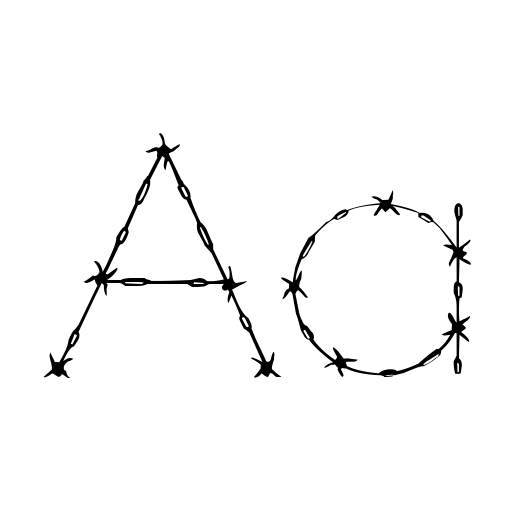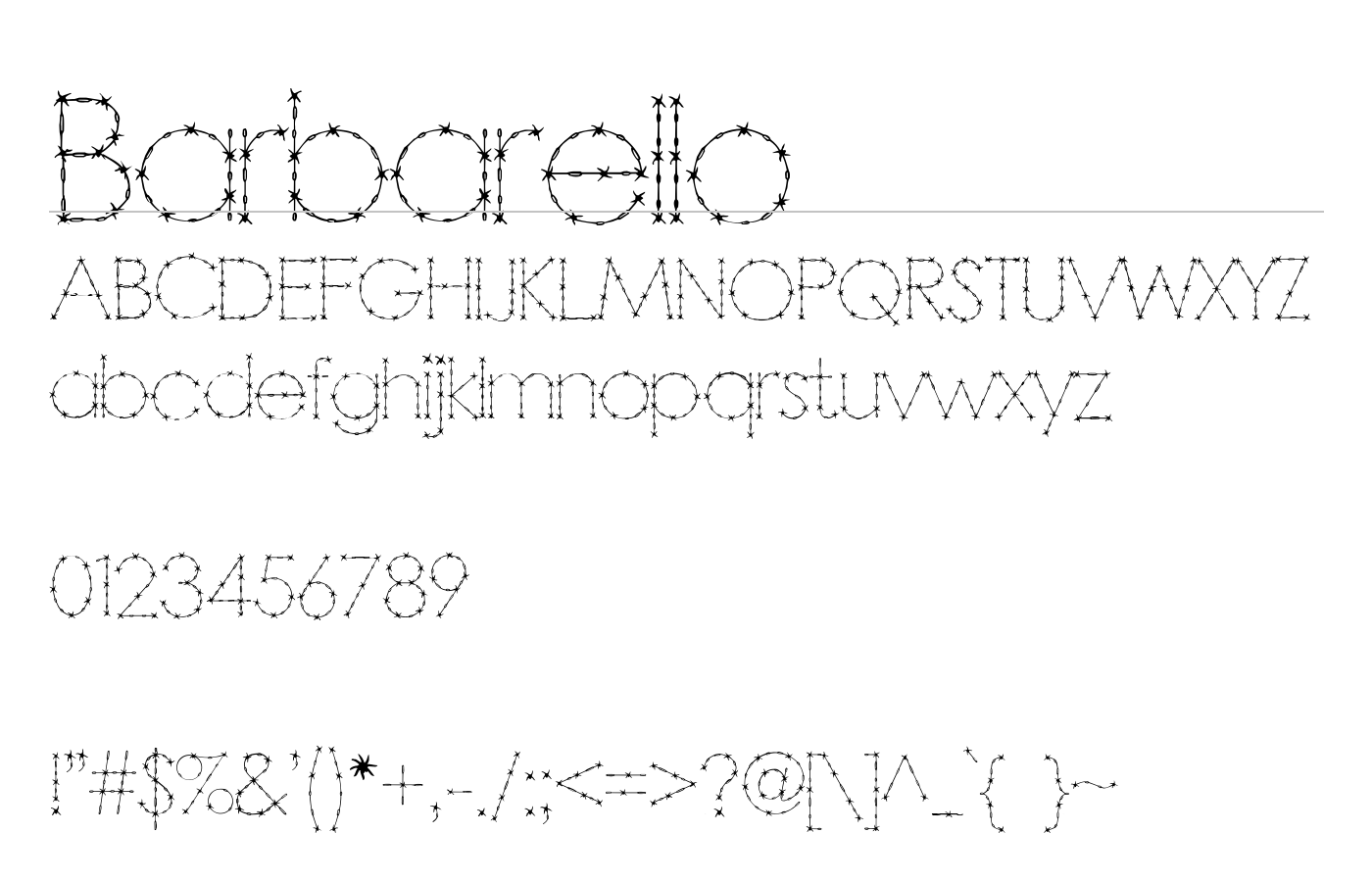
Barbarello is a delicate and decorative sans serif font designed with fine lines resembling barbed wire, giving it a unique, edgy, and slightly rebellious character. Its narrow and lightweight letterforms create an airy and intricate appearance that works best for artistic, thematic titles, logos, or creative projects needing a distinctive, unconventional touch. This font adds a striking visual interest, making it ideal for designs that aim to stand out with a bold, modern, and slightly rugged personality.
Barbarello Font
About Barbarello Font